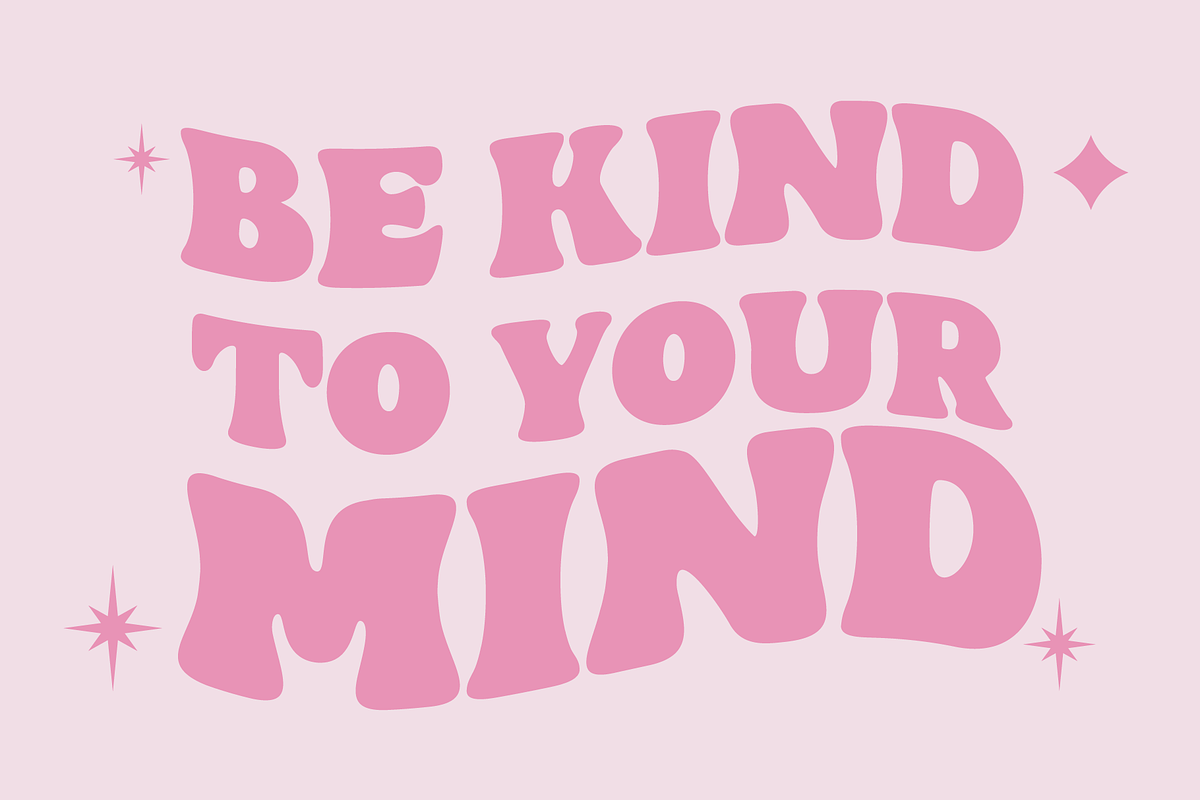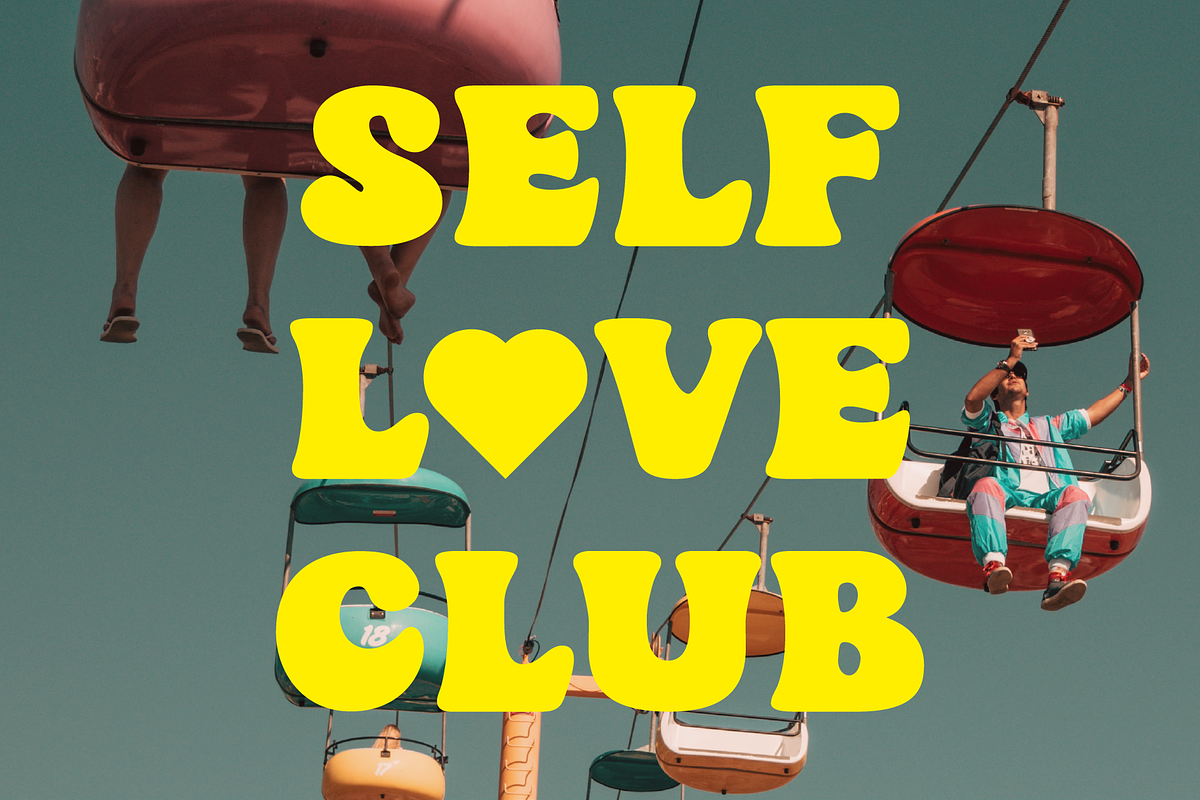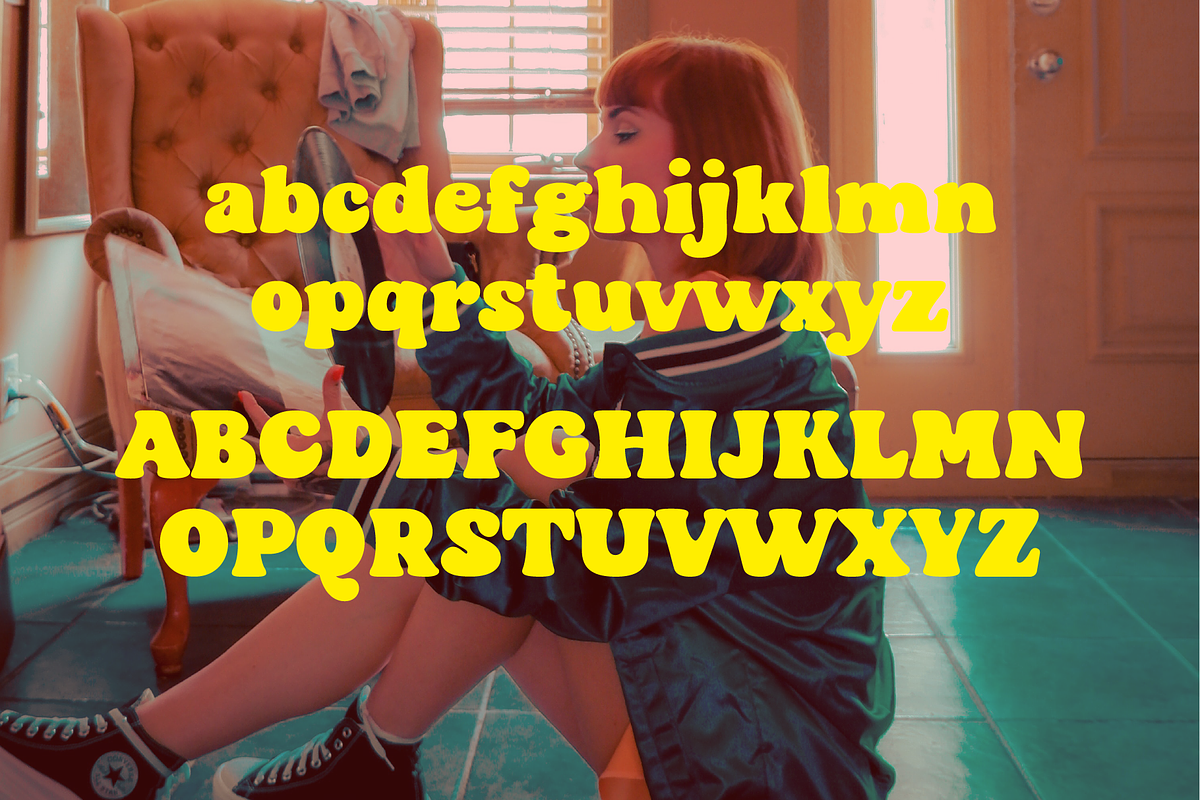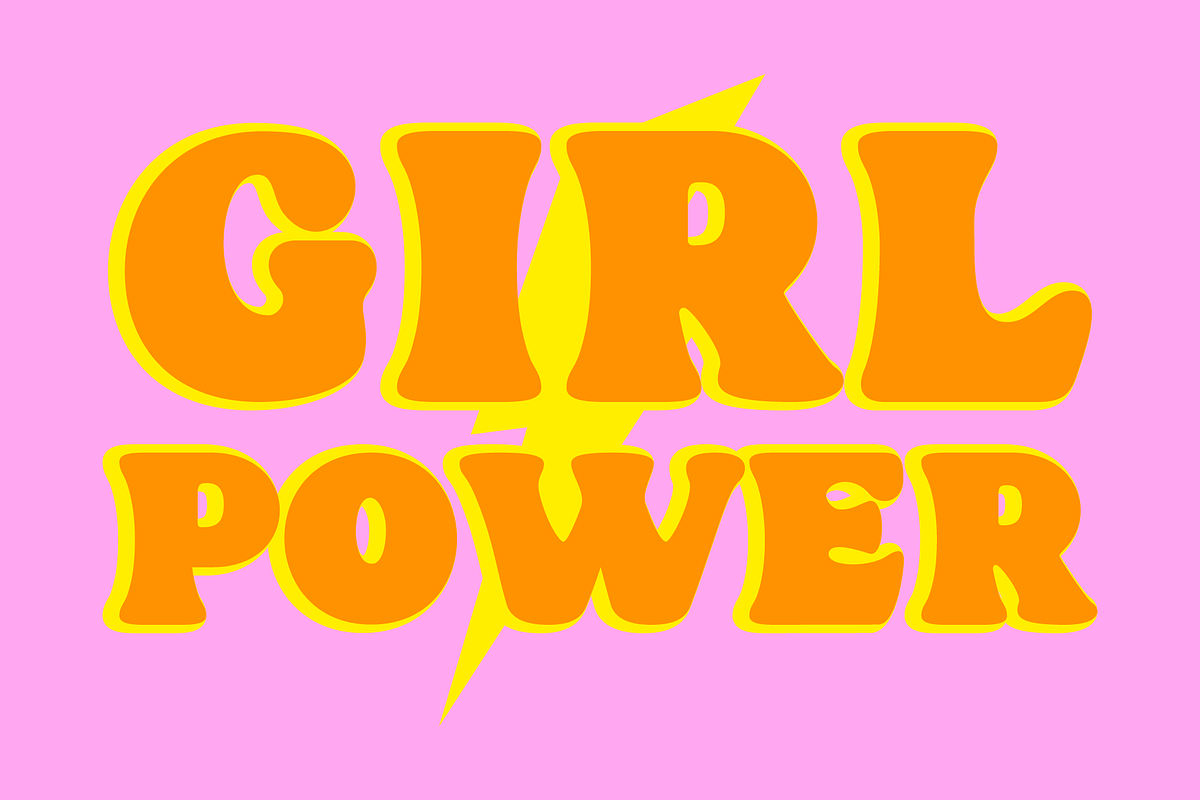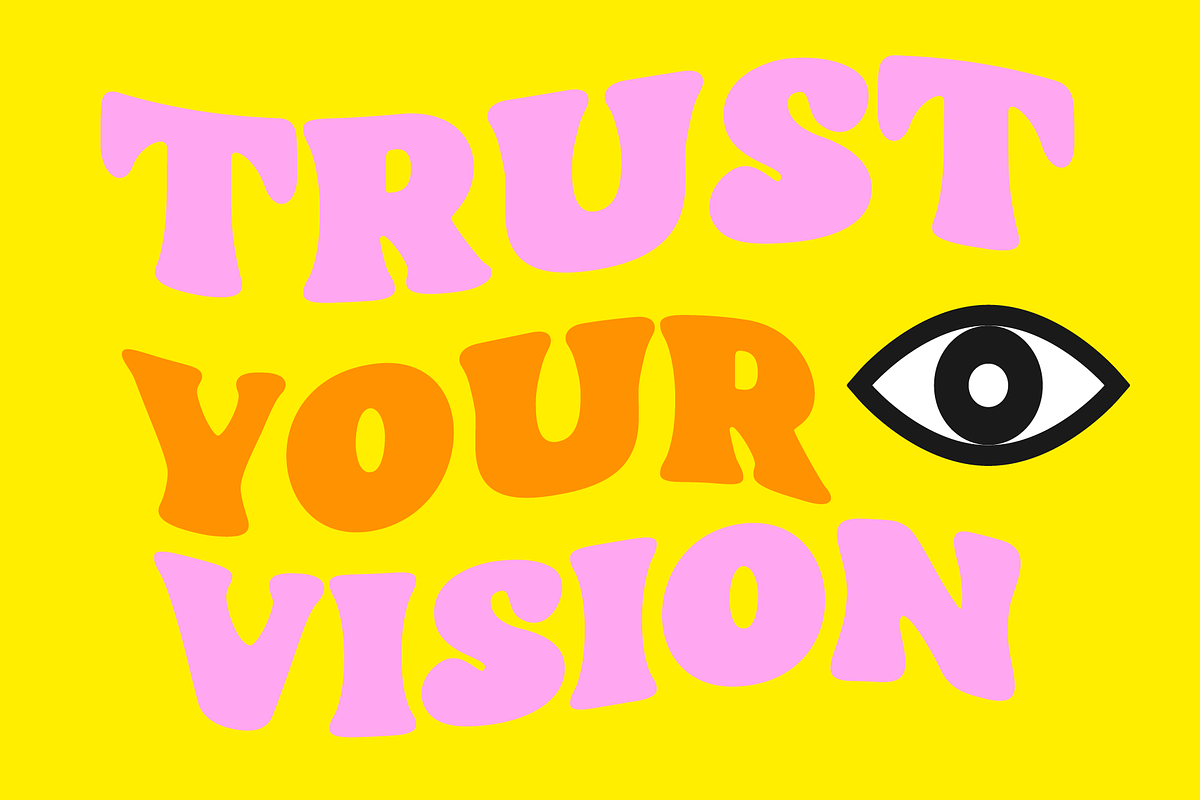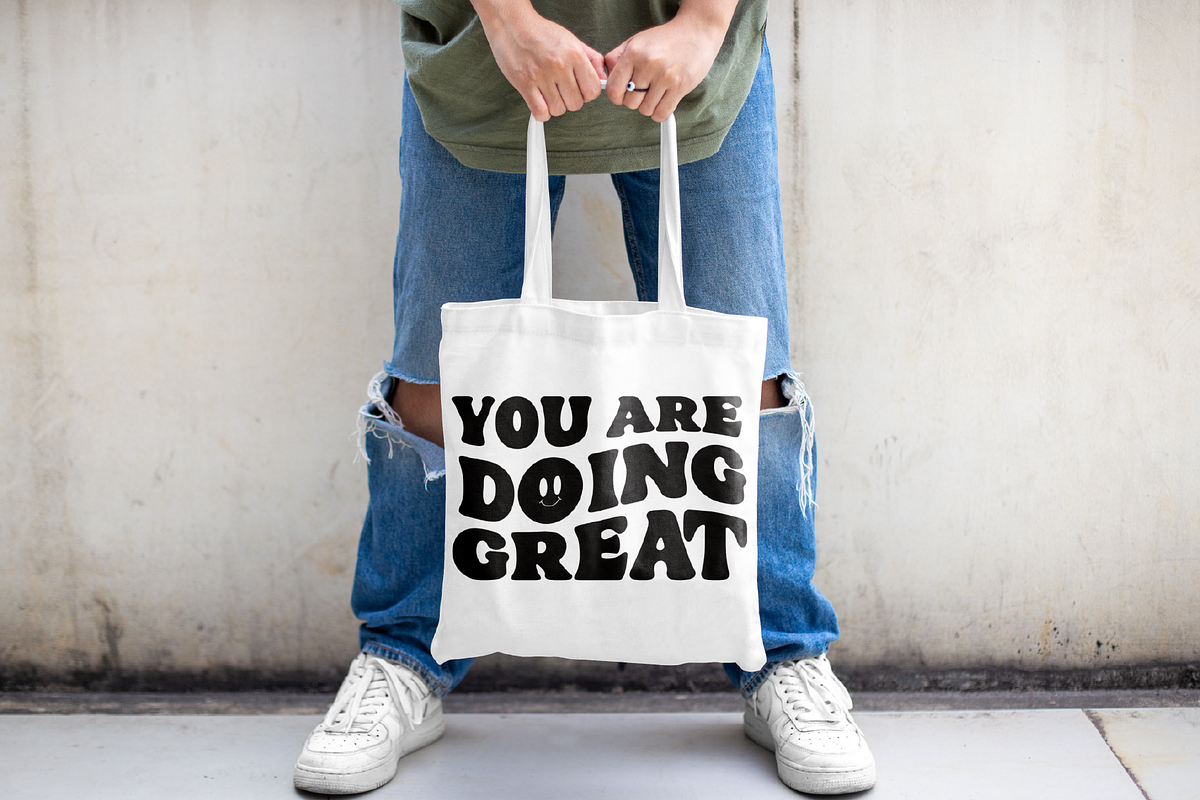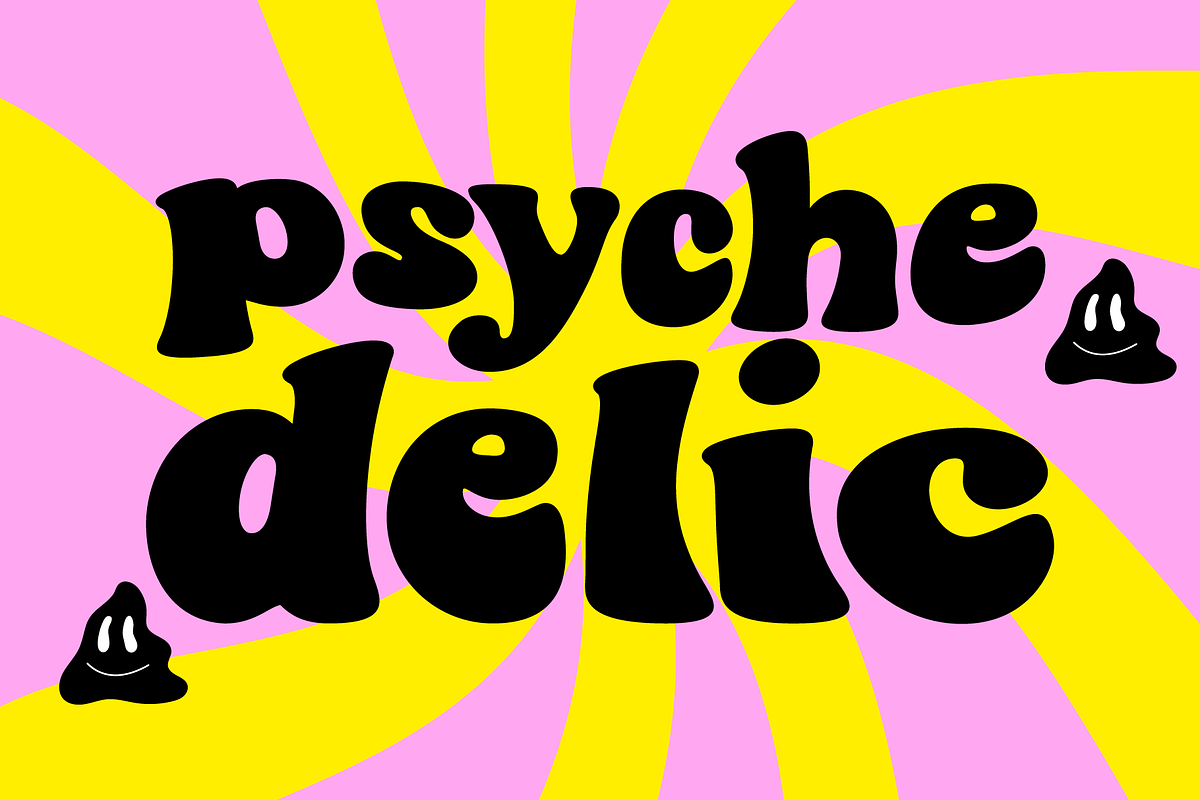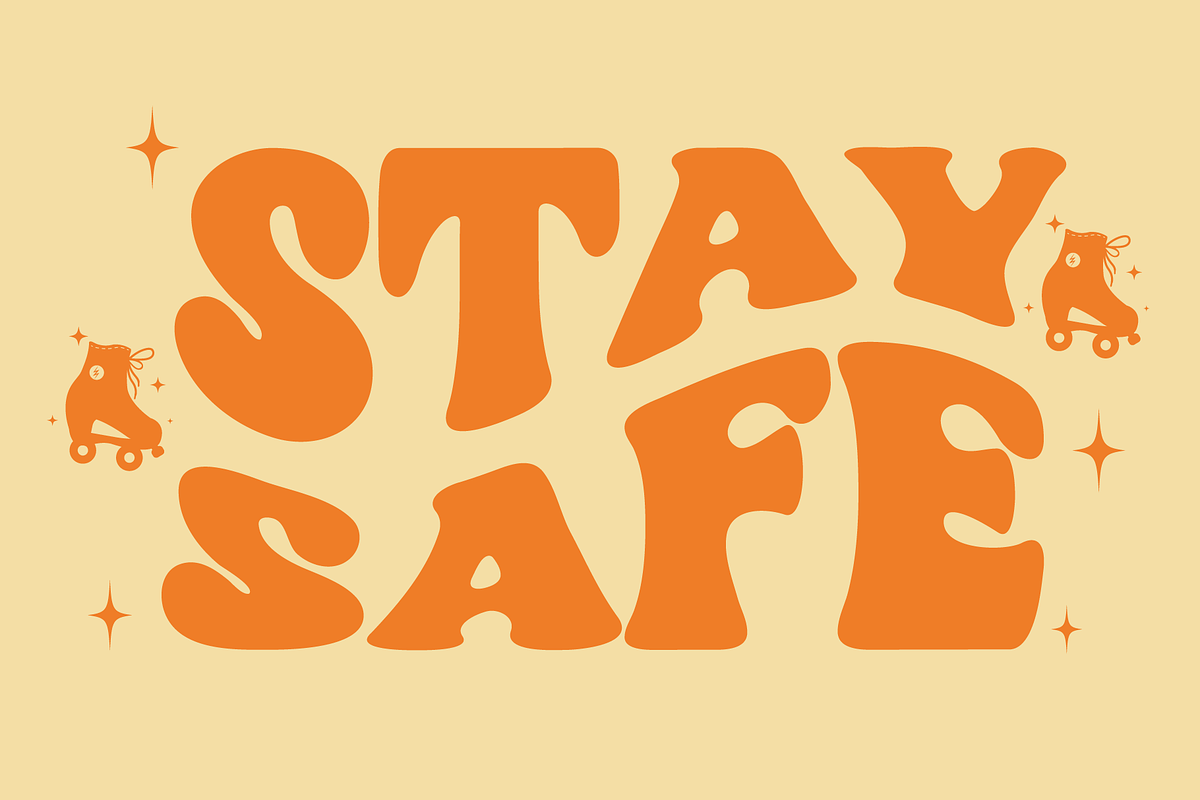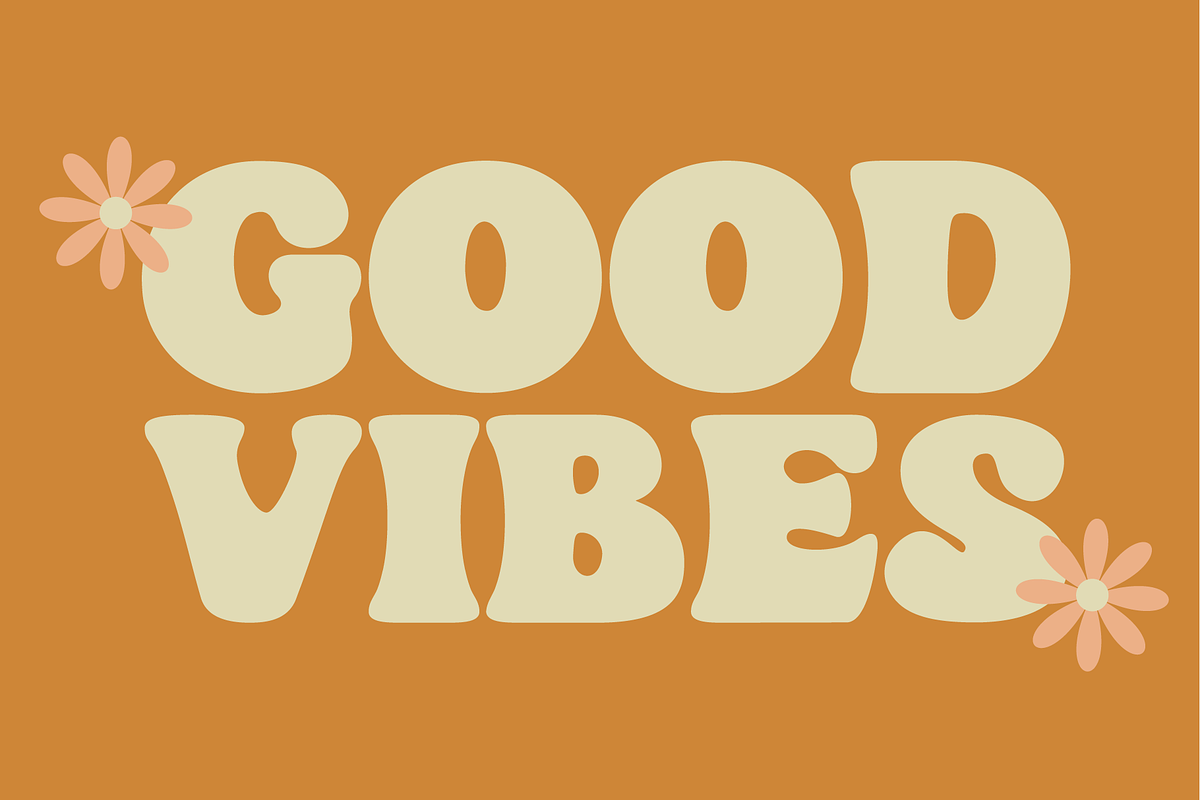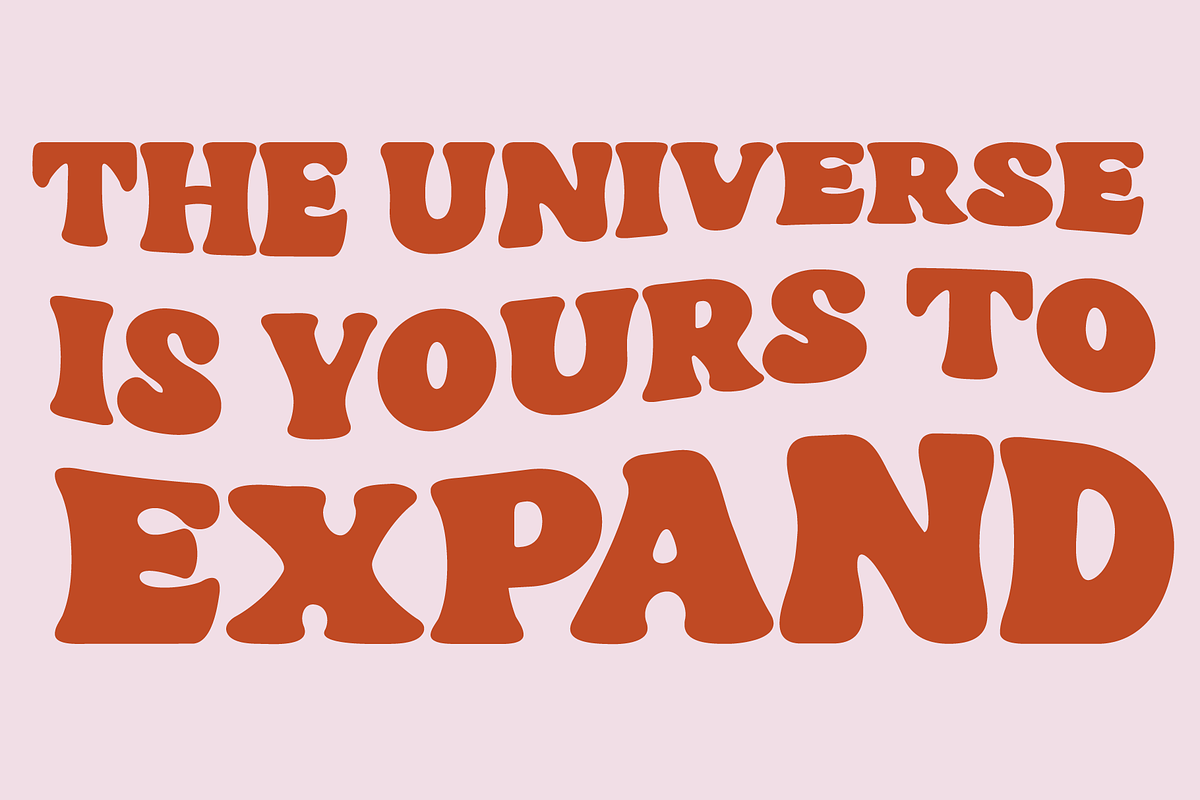
Sparkling Sunday A Groovy Font
Introducing the newest addition to your font collection — Sparkling Sunday! This font is the perfect combination of vintage and modern, with bold and chunky letters that are sure to make a statement.
The font is inspired by the 80s and 90s era, with a touch of modern typography. Each letter is carefully crafted with attention to detail, giving it a unique and eye-catching look.
The font is perfect for posters, flyers, logos, and any design that needs a retro touch. It comes in a regular style and an extra including 26 retro graphics to allow versatility in your designs.